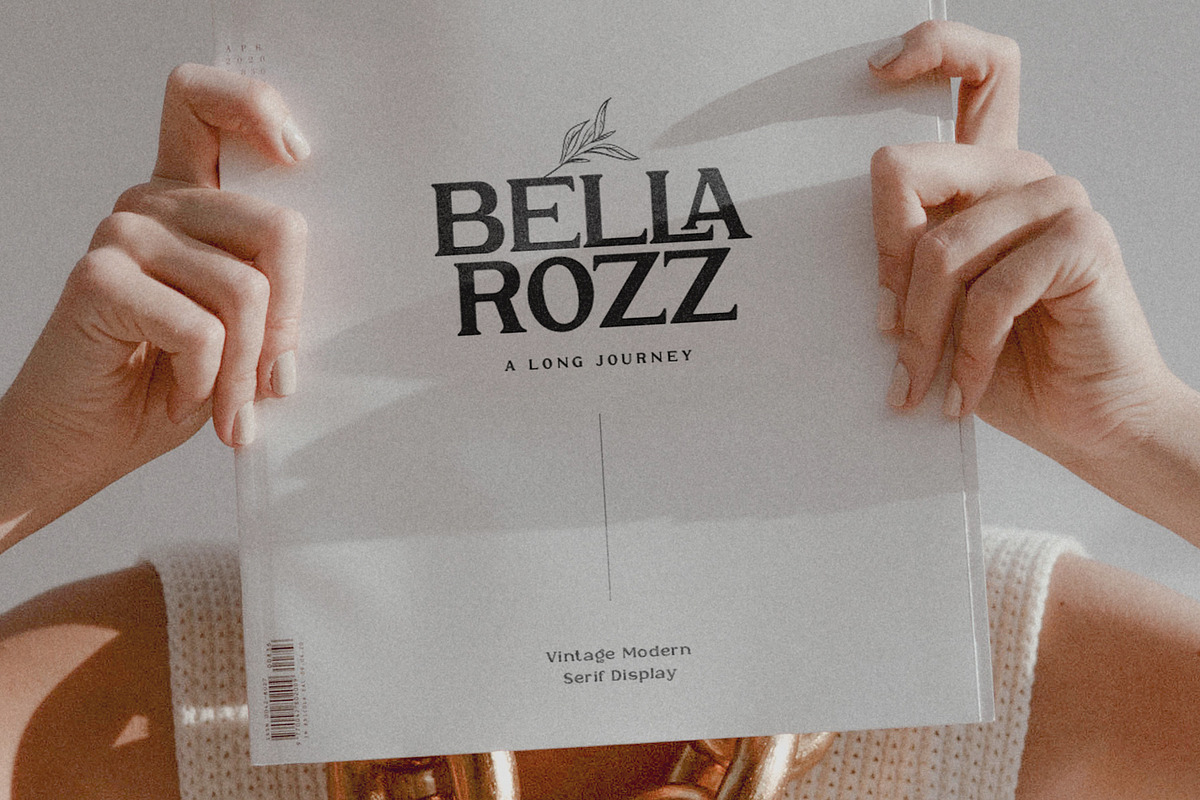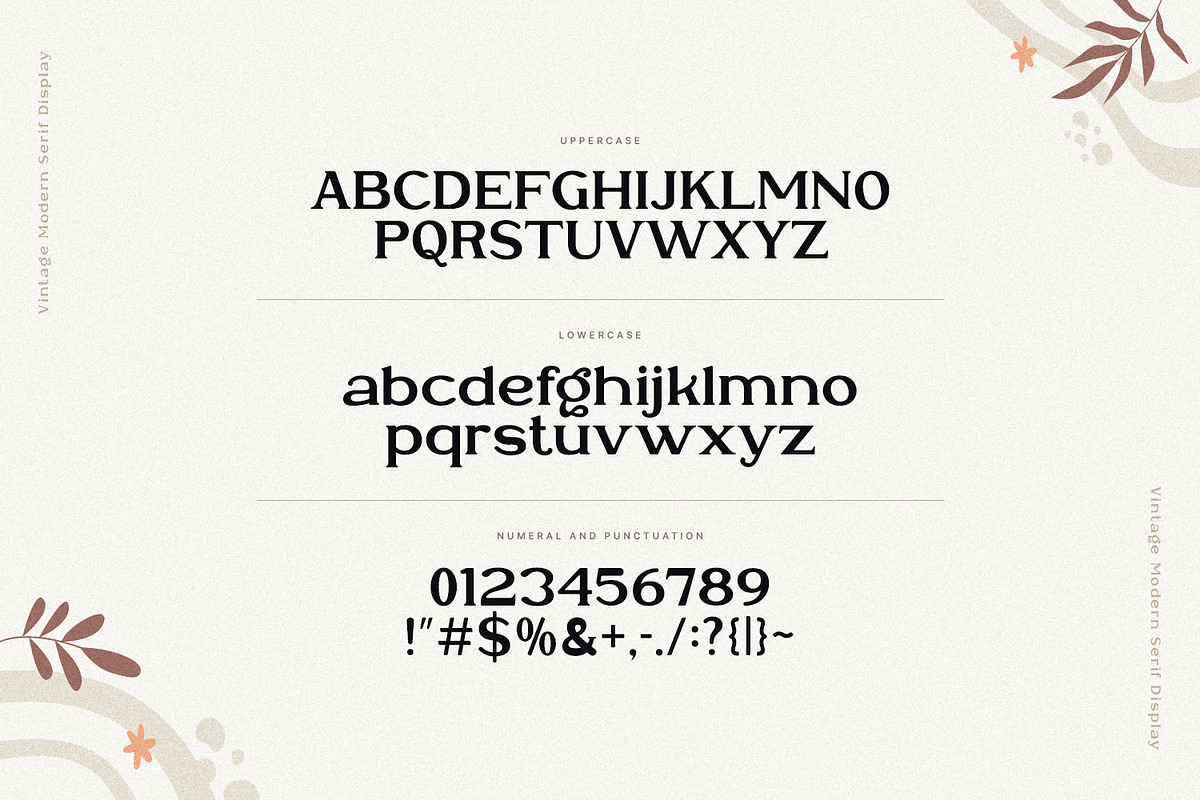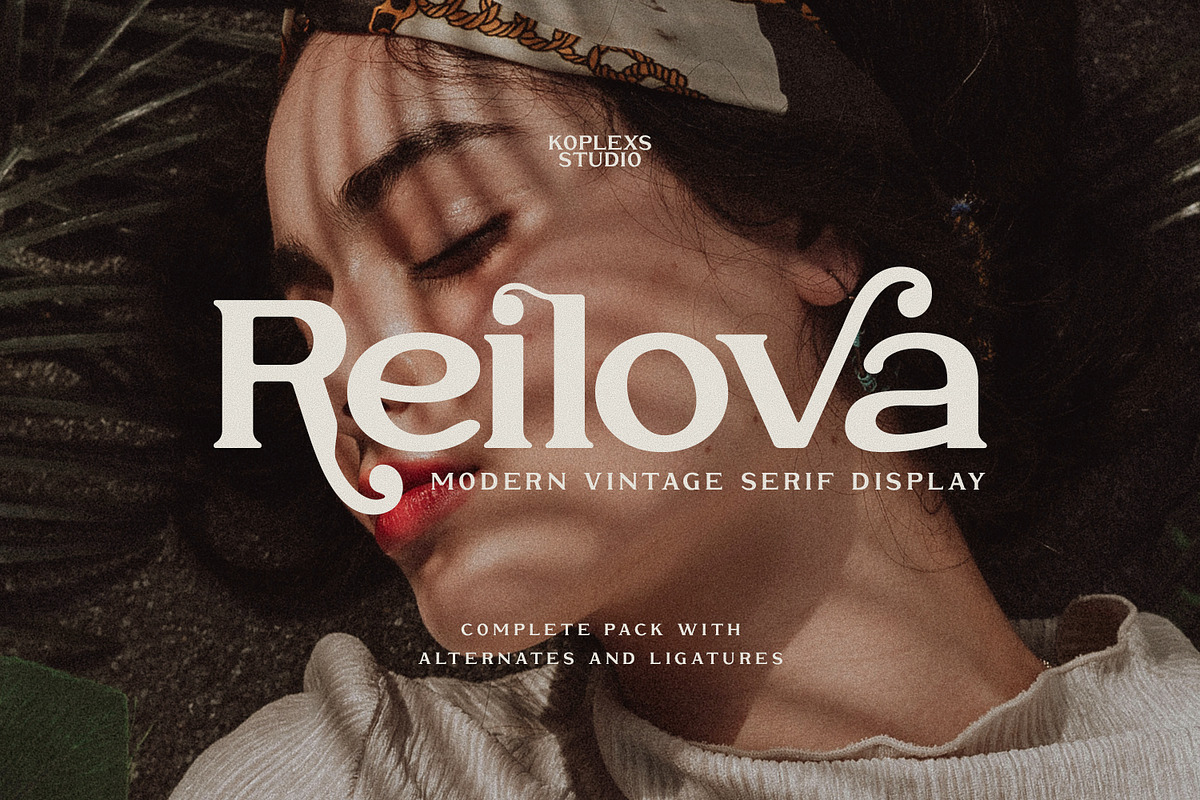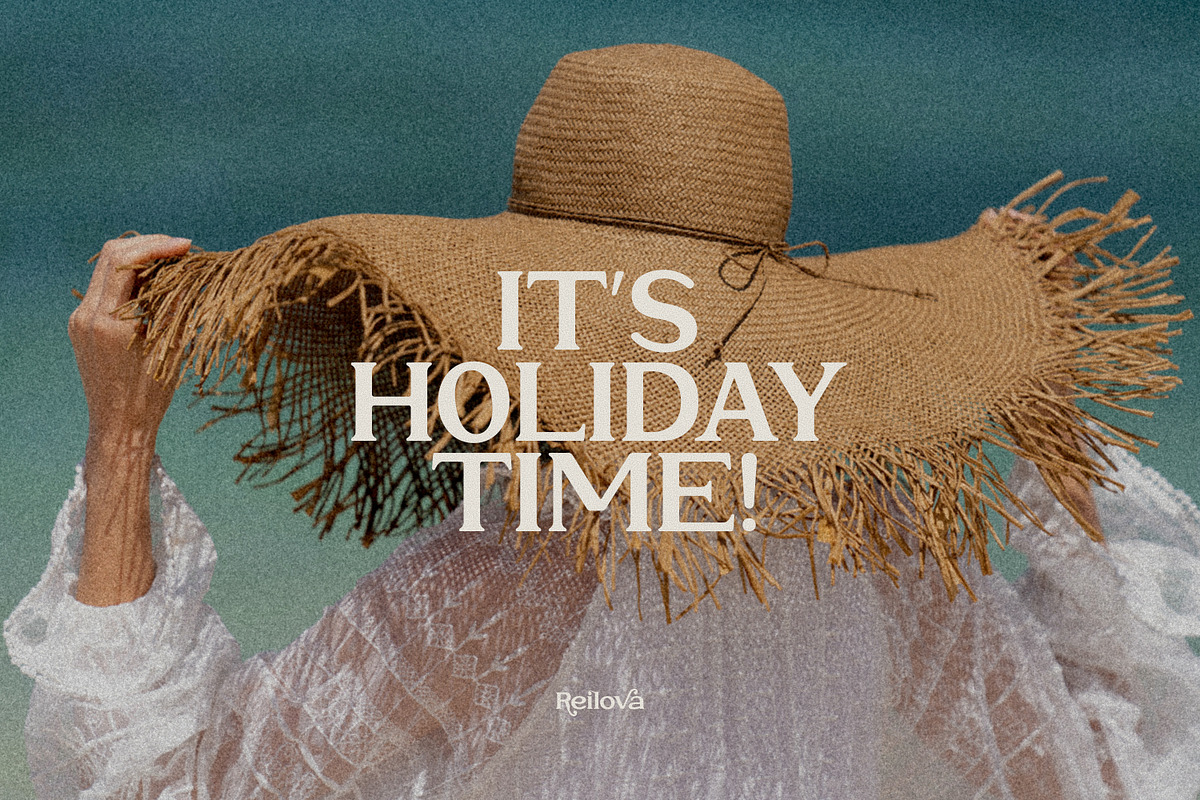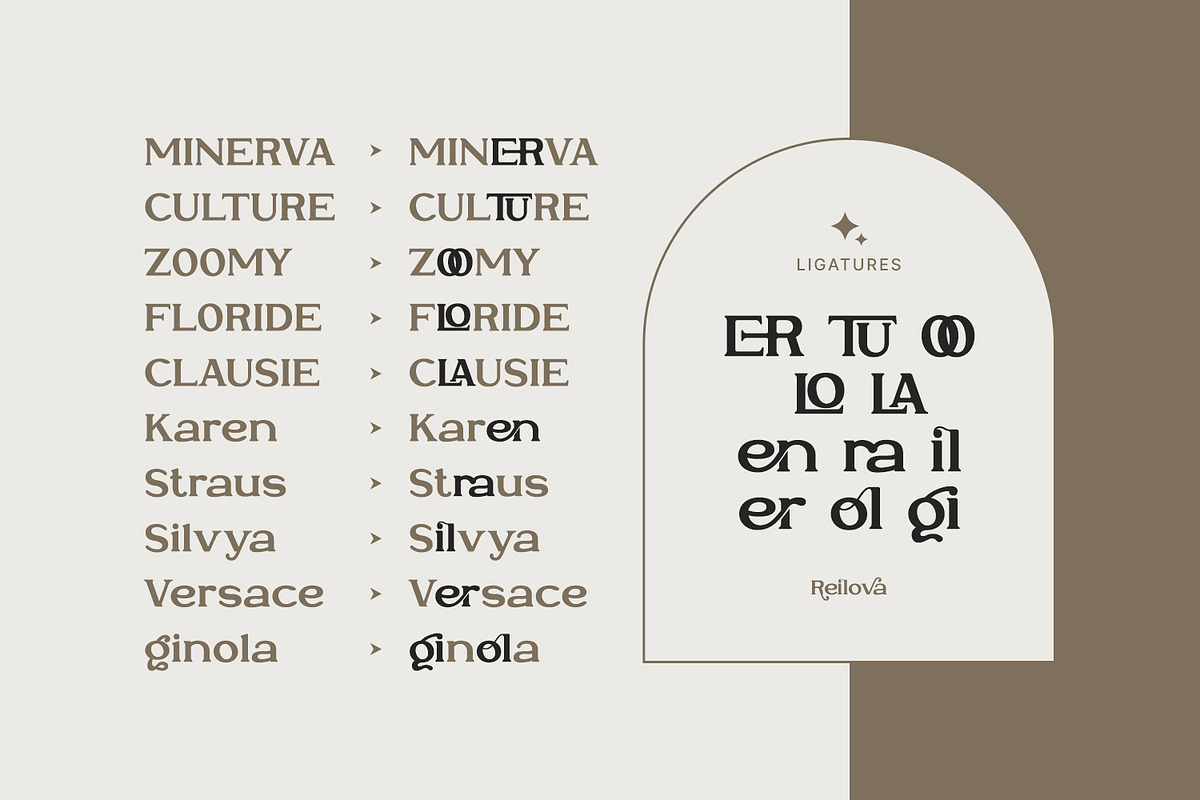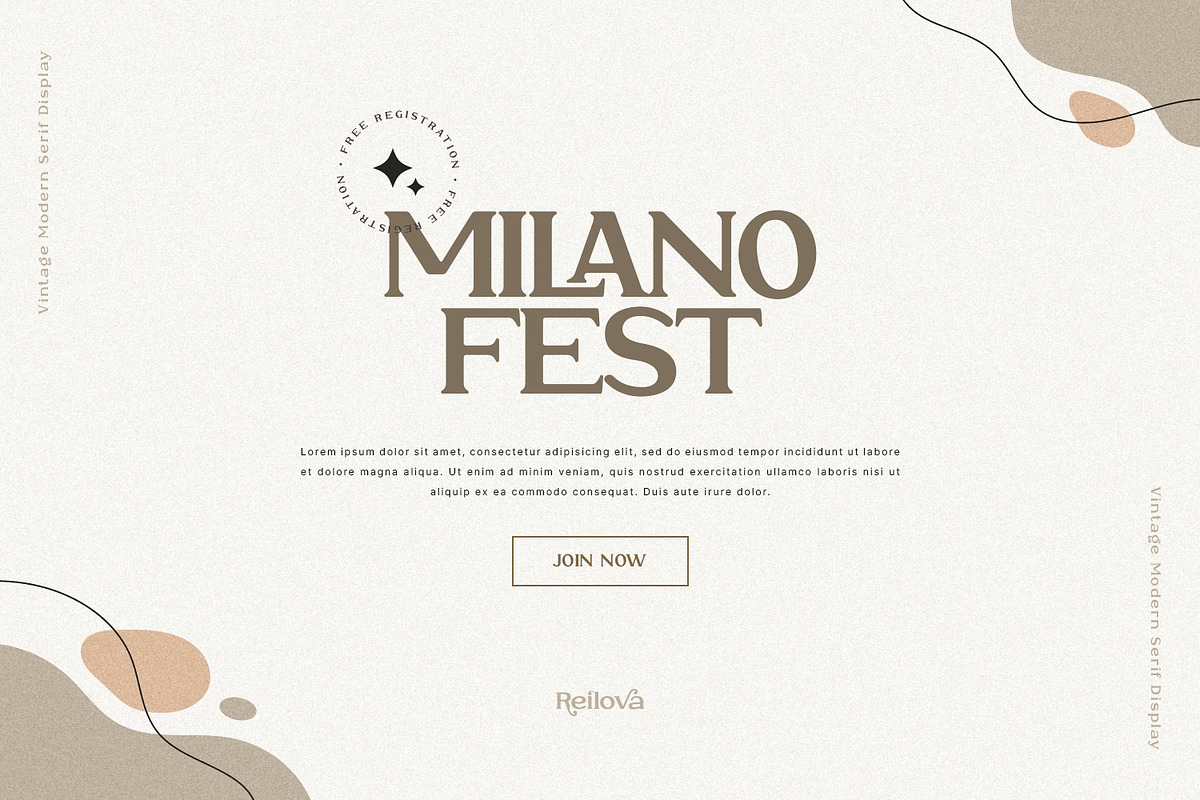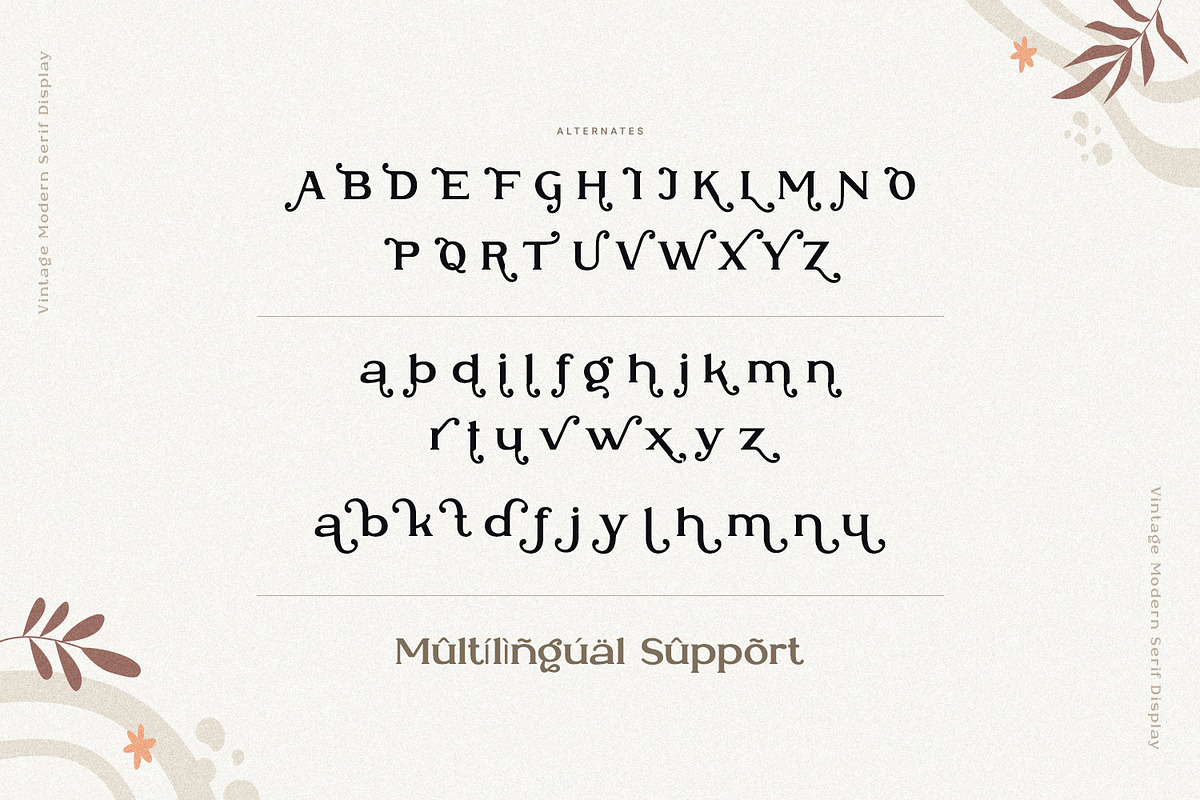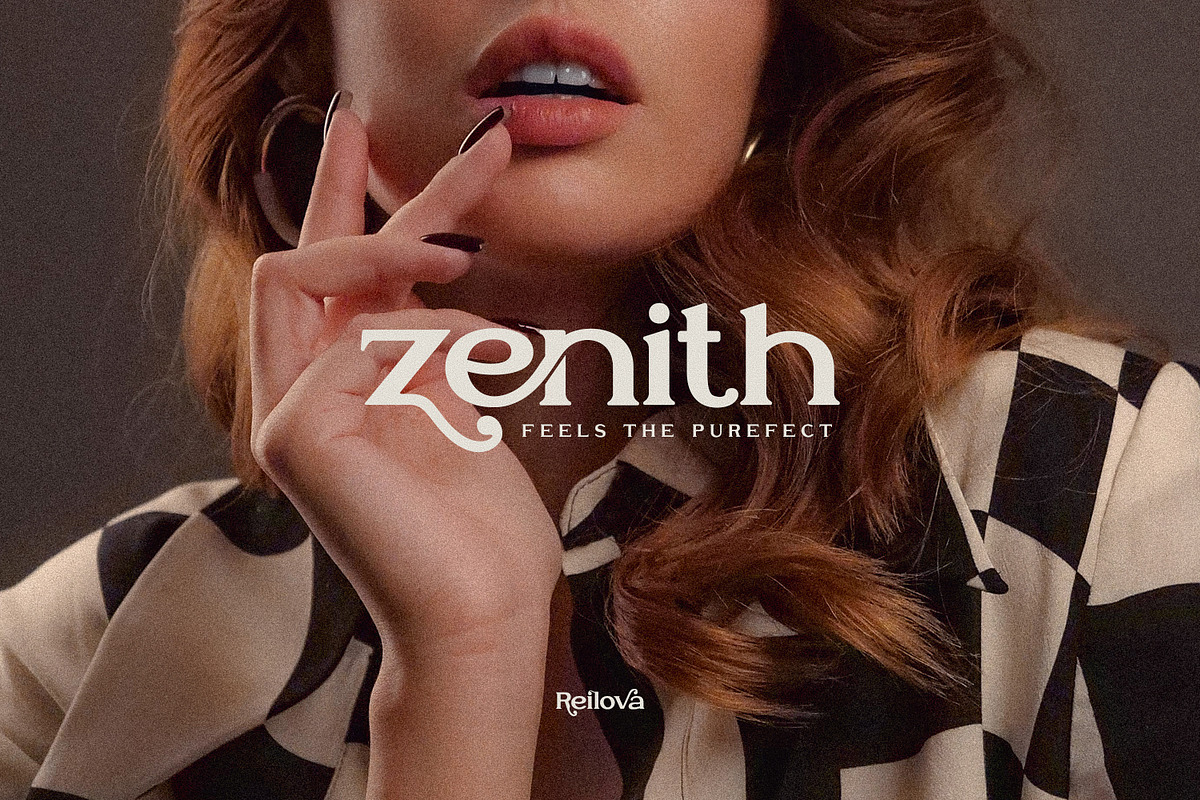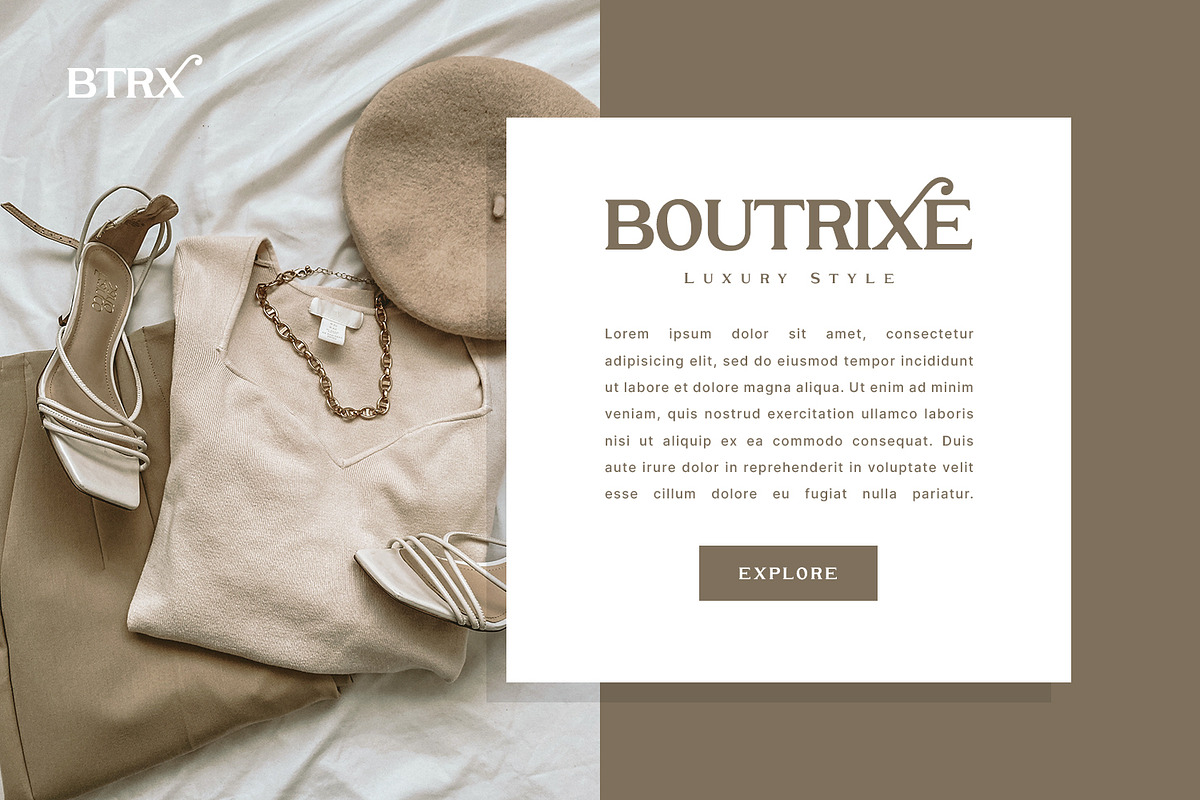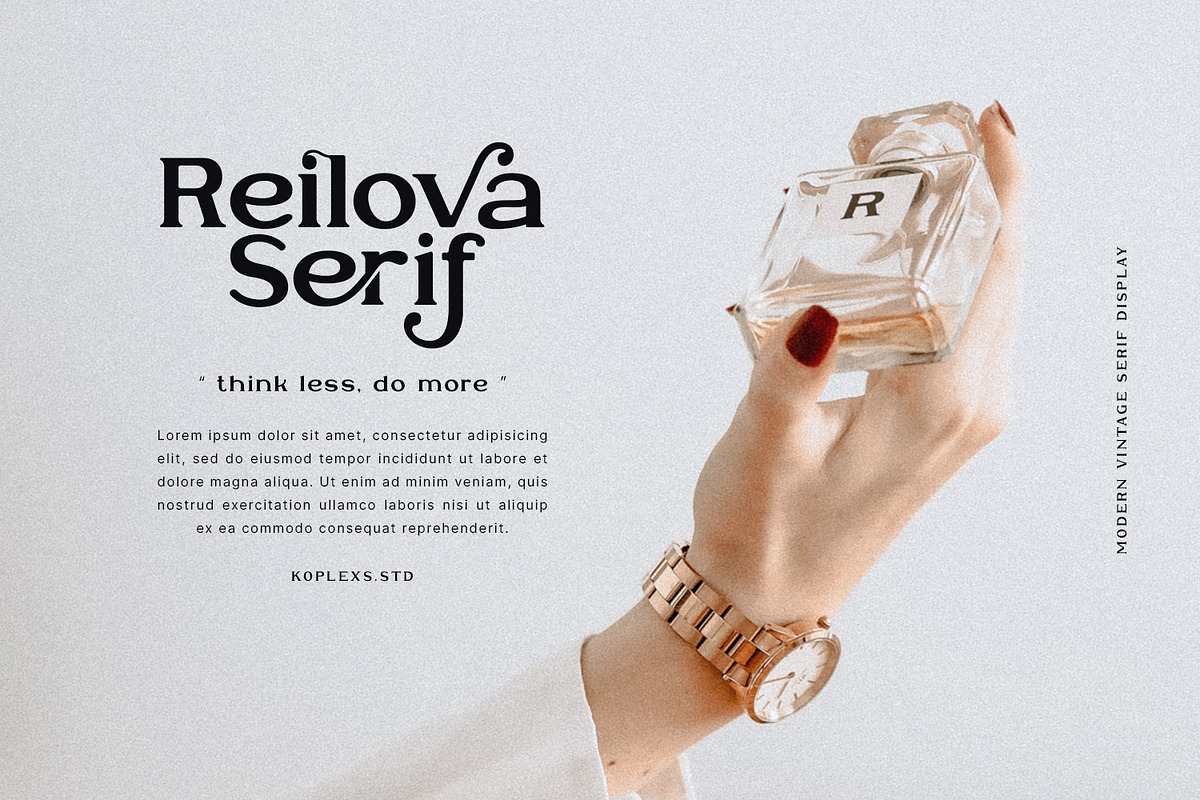
Reilova Modern Vintage Serif Display
Reilova - Modern Vintage Serif Display
Reilova - Modern Vintage Serif Display with beautiful ligatures, Unique alternative , multilingual support with perfect kerning, classy characters, giving you a unique look for any branding or design need.
Reilova - Modern Vintage Serif Display. This typeface is perfect for an elegant & luxury logo , classy editorial design, women's magazine, fashion brand , cosmetic brand, fashion promotion , modern advertising design, invitation card, art quote, home decoration , book/cover titles, special events, and much more.
- Ligatures Features.
- Alternates.